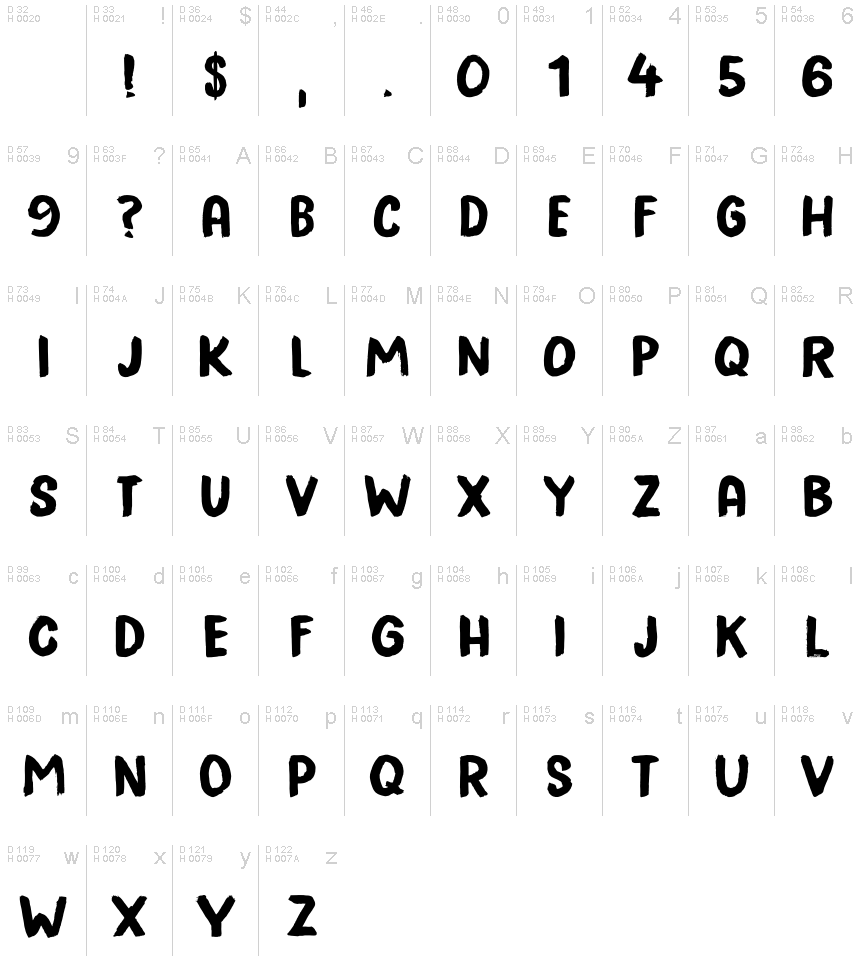
Leaden Skies DEMO Regular
Leaden Skies, crafted by the talented David Kerkhoff, exudes a captivating brush style that commands attention. Its bold presence is immediately striking, with sweeping curves and expressive strokes that evoke a sense of artistic freedom. The font’s robust form adds weight to any text, making messages resonate powerfully while maintaining an organic charm.
Visually, Leaden Skies is ideal for capturing the spirit of creativity in design projects such as branding, posters, and social media graphics. Whether conveying a playful mood or an edgy vibe, its dynamic character lends itself beautifully to various applications where impact and personality are essential. Embrace Leaden Skies to elevate your visual storytelling and make a lasting impression.